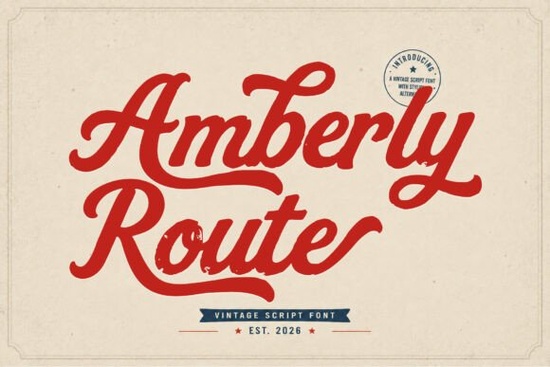
Amberly Route Font is a standout choice for anyone looking to add a touch of elegance and vintage charm to their designs. This script font brings a regal, classical feel that feels both timeless and modern. Whether you're working on branding, packaging, or social media graphics, Amberly Route offers a unique blend of style and readability that’s hard to match.
Designed with attention to detail, Amberly Route features bold strokes and smooth curves that give it a handcrafted look. The font includes elegant swashes and fashion-forward alternates, making it versatile for a wide range of creative projects. Its warm and inviting character makes it ideal for anything from logos to editorial layouts, bringing an old-world charm to your work without sacrificing clarity.
What Makes Amberly Route Unique?
Amberly Route stands out because of its balance between aesthetics and functionality. The font maintains a high level of readability even at smaller sizes, which is essential for many design applications. Its vintage-inspired style gives it a nostalgic appeal that can enhance the visual storytelling of your projects.
The font’s versatility allows it to work well in both digital and print formats. Whether you’re designing a website, creating promotional materials, or working on a custom product, Amberly Route can help you achieve a polished and professional look. Its ability to adapt to different styles makes it a valuable addition to any designer’s toolkit.
Best Uses for Amberly Route
One of the most common uses for Amberly Route is in branding. Its classic yet modern appearance can help create a memorable and sophisticated brand identity. It’s also great for packaging design, where a unique font can make your products stand out on the shelf.
For print-on-demand sellers, Amberly Route can add a personal and artistic touch to t-shirts, mugs, and other merchandise. Its elegant style works well for labels, posters, and signage, giving your designs a refined and cohesive look. Small businesses looking to elevate their visual presence may find this font particularly useful.
Amberly Route is also a popular choice for social media graphics. Its bold and stylish appearance can catch attention and make your posts more engaging. When used in editorial designs, it adds a touch of sophistication that can enhance the overall aesthetic of your content.
How to Choose the Right Script Font
When selecting a script font, consider the tone and purpose of your project. Some fonts are better suited for formal or traditional designs, while others have a more casual or playful vibe. Amberly Route falls into the category of elegant and versatile script fonts, making it a good fit for a variety of applications.
It’s also helpful to test different fonts in your design to see how they look in practice. Pay attention to how the font interacts with other elements, such as colors, images, and layout. A well-chosen font can greatly enhance the overall impact of your work.
Whether you're a designer, crafter, or small business owner, Amberly Route Font provides a powerful tool for adding character and style to your work. Its combination of elegance, readability, and versatility makes it a valuable resource for anyone involved in creative projects.
Before finalizing your design, take some time to experiment with the font and see how it fits your vision. Consider the context in which it will be used and ensure it aligns with the overall message you want to convey. With the right approach, Amberly Route can help bring your creative ideas to life.
Here’s a quick checklist to keep in mind when using Amberly Route:
- Test the font in different sizes and formats
- Ensure it complements other design elements
- Check for readability in both digital and print versions
- Consider the tone and purpose of your project
- Explore related fonts for additional inspiration
By taking these steps, you can make the most of Amberly Route and create designs that truly reflect your creative vision.